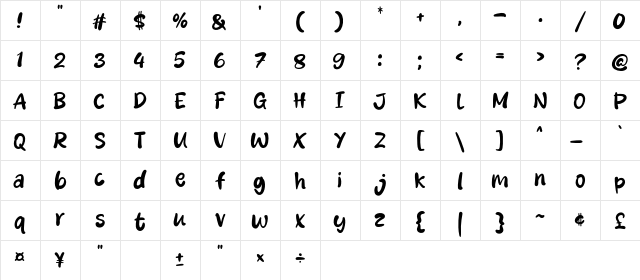
Apayah Loe Regular Free Font
Apayah Loe Regular
Foundry: Khurasan
Designer: Khurasan
Design Context for Apayah Loe
Apayah Loe is a composed and adaptable typeface that performs quietly and consistently across a wide range of design contexts.
Pro Tip: Use Apayah Loe in both headline and body roles to test its range before committing to a single application.